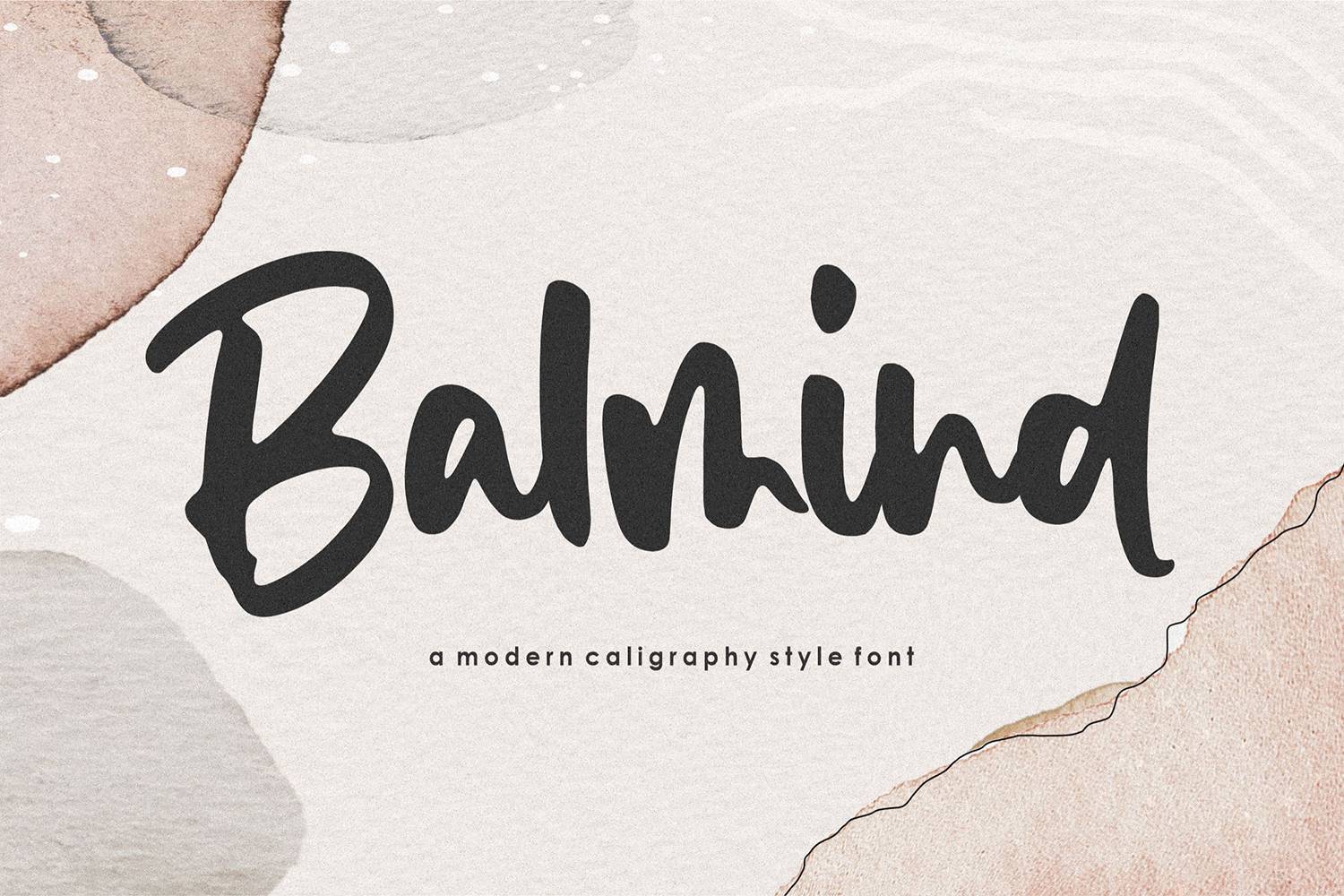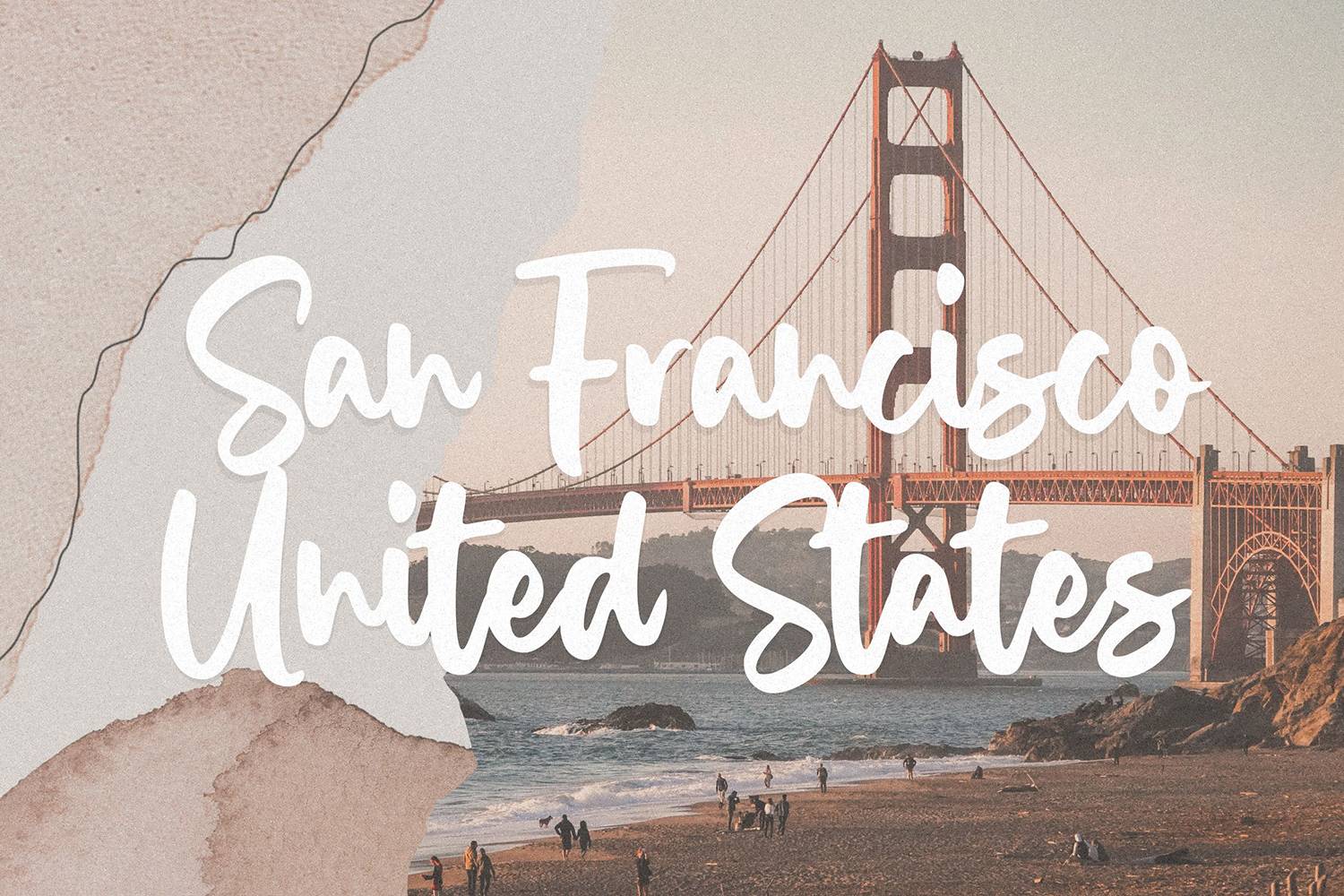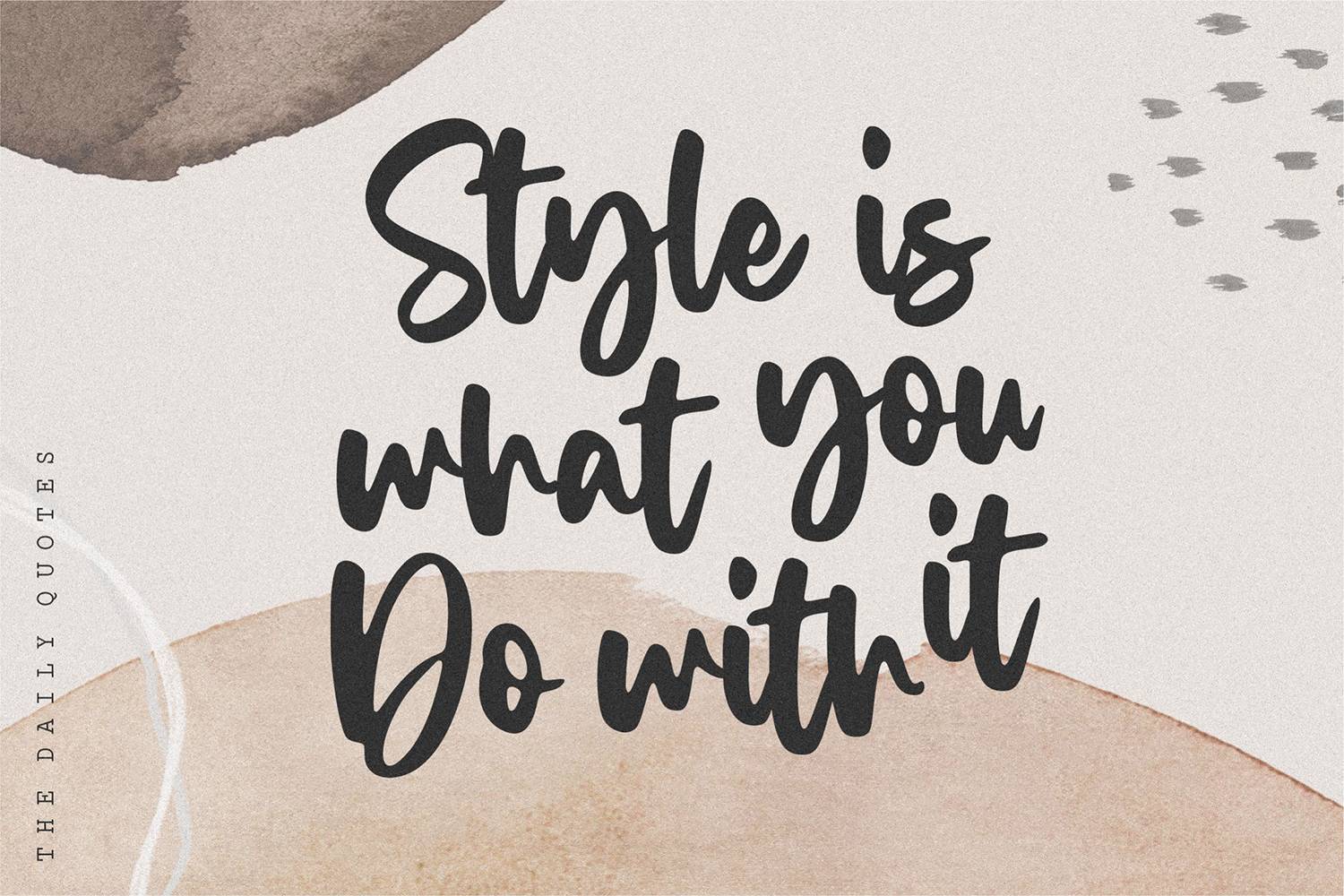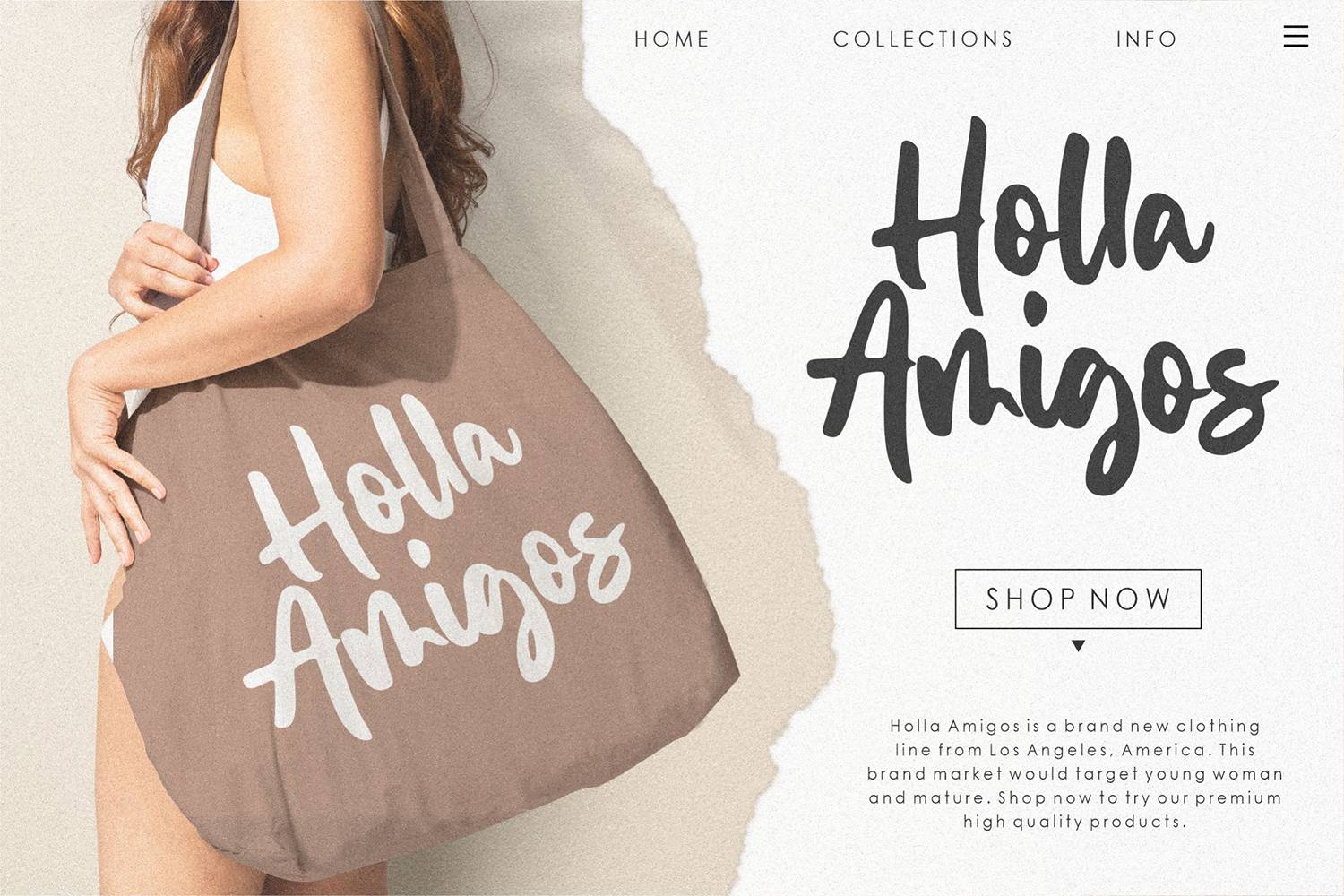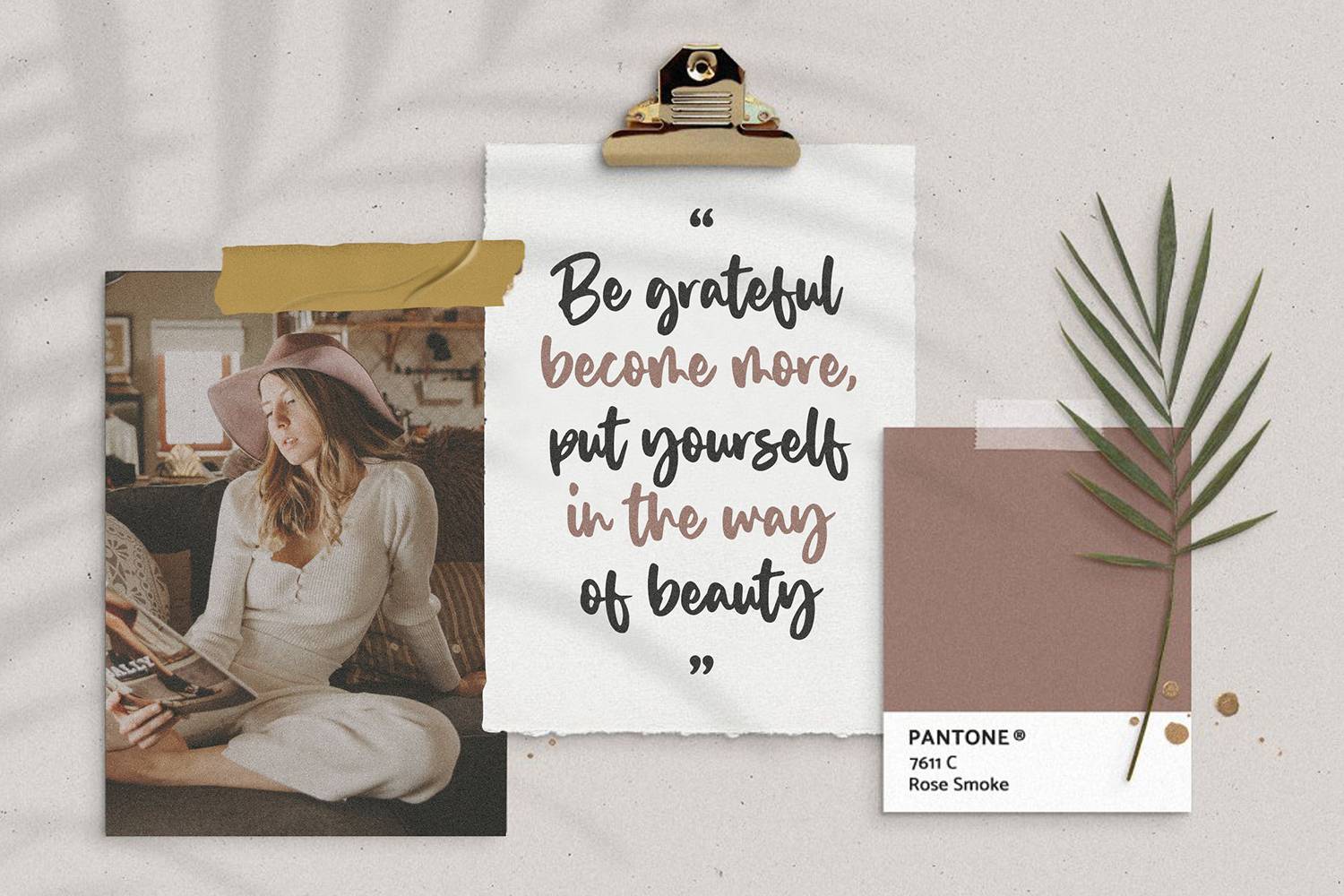
Balmind is a lively and casual handwritten script font that features smooth, rounded strokes and a friendly, informal feel. Its medium weight and moderate contrast give it a bold yet approachable personality, making it perfect for playful branding, social media graphics, and creative projects where a personal touch is desired. This font works well for headlines, logos, and packaging that aim to convey warmth and energy.
Balmind Font
About Balmind Font
| Font family | Balmind Font |
| Designer | Annas Alam Yahya |